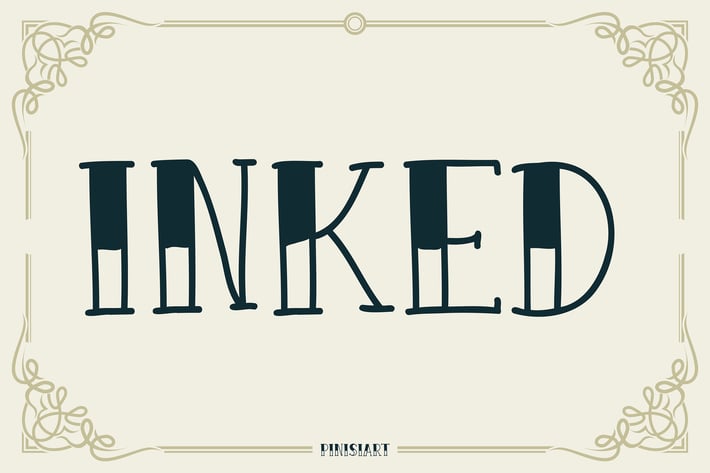
Vintage Tattoo Font - Inkos
🖋 INKED – The Art of Tradition 🖋
Step into the world of classic tattoo artistry and vintage craftsmanship with INKED, a font that blends bold, intricate strokes with timeless elegance. Inspired by Victorian tattoo scripts, historical signage, and barbershop branding, INKED is designed for those who appreciate heritage, precision, and style.
With its ornate detailing and bold presence, this font is perfect for tattoo branding, whiskey labels, historical typography, and vintage poster designs. Whether you're creating a barbershop logo, a timeless tattoo composition, or a refined liquor label, INKED delivers sophistication with an edge.
Why Choose INKED?
Tattoo-Inspired Lettering – A bold and decorative typeface rooted in classic ink culture.
Elegant Yet Strong Presence – Ideal for branding with an artisanal touch.
Perfect for Whiskey, Barbershops & Signage – Evokes heritage and tradition.
Optimized for Print & Digital – High detail and readability across mediums.
Vintage Meets Modern – A blend of historical elegance with contemporary craftsmanship.
⚡ Leave a lasting mark with INKED – where tradition meets bold design. ⚡